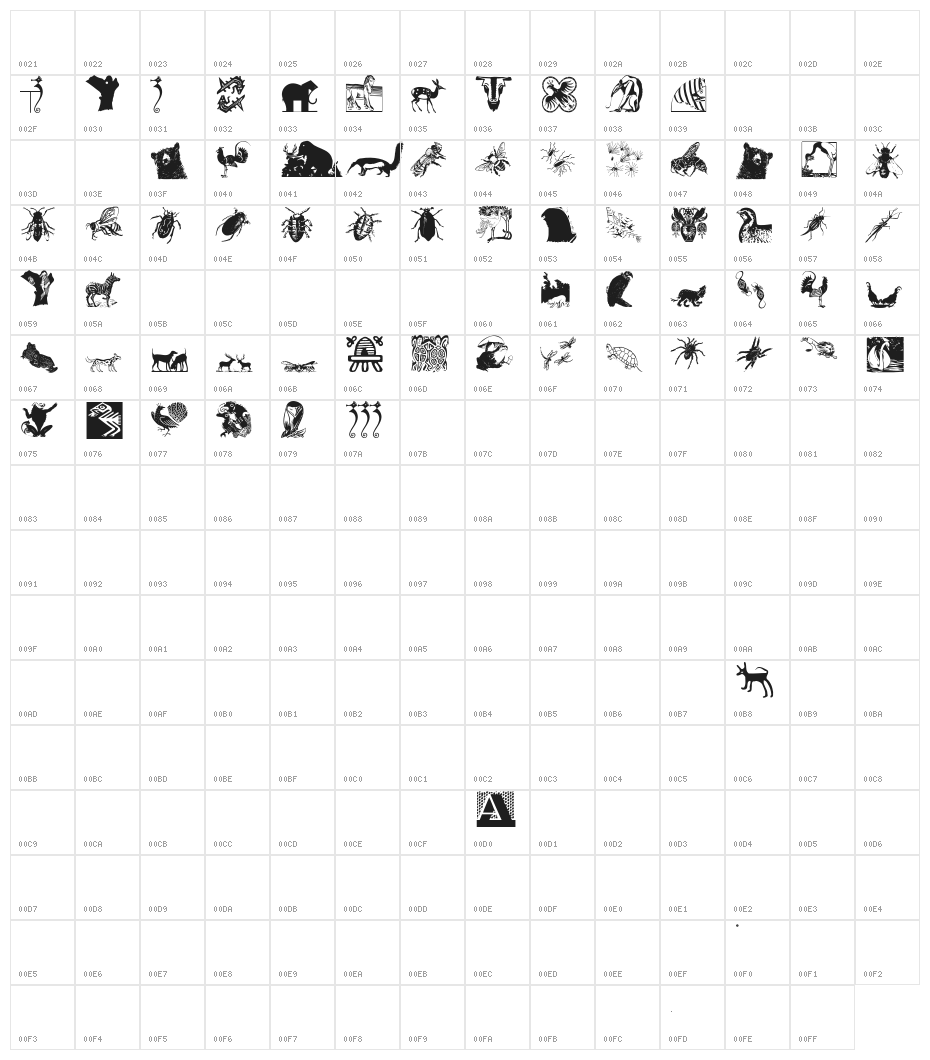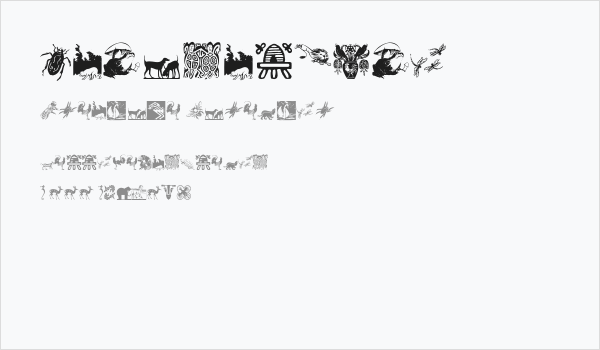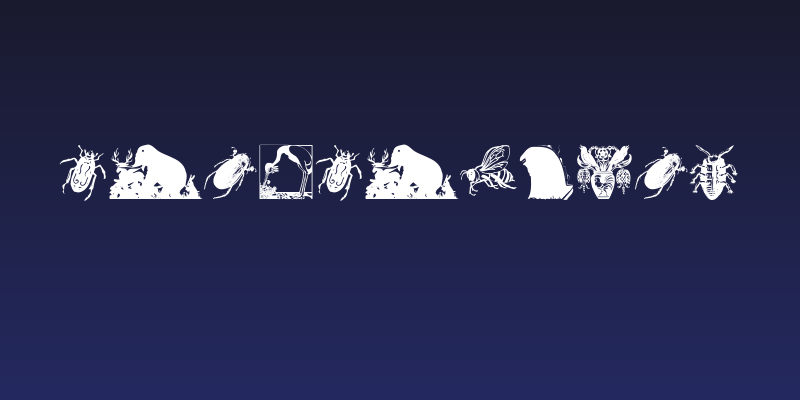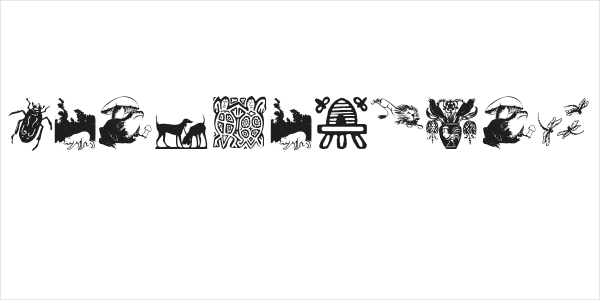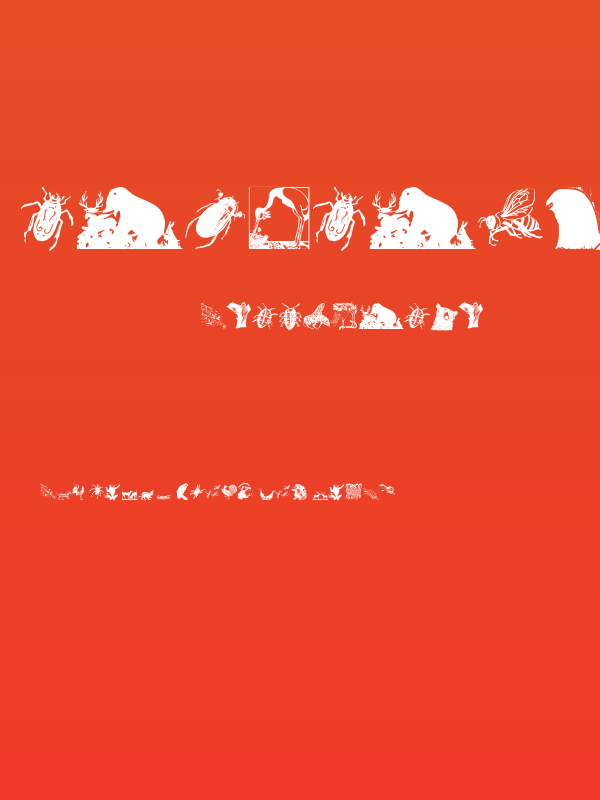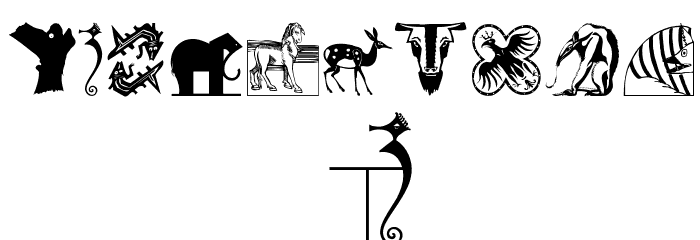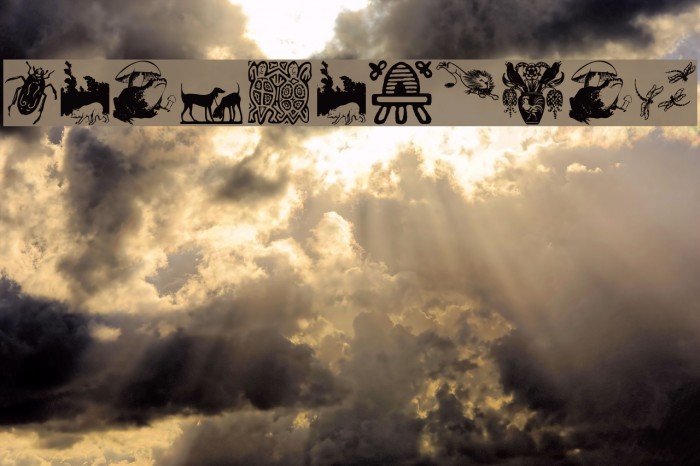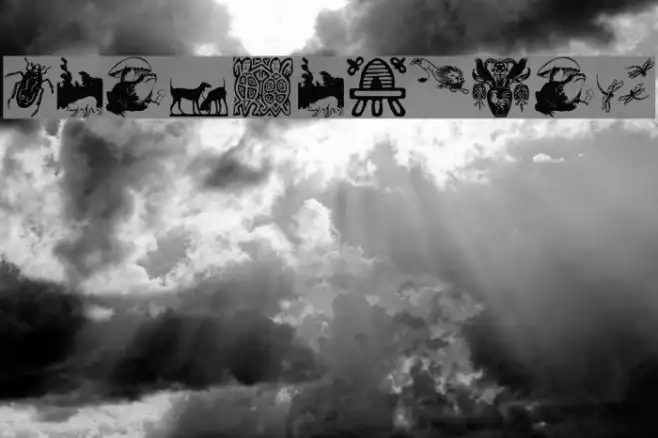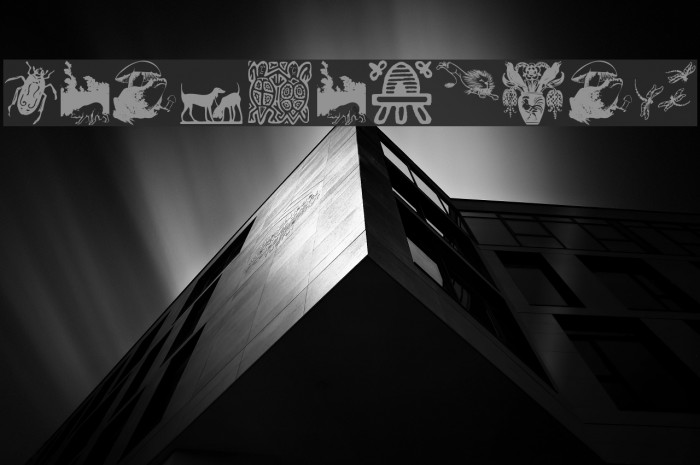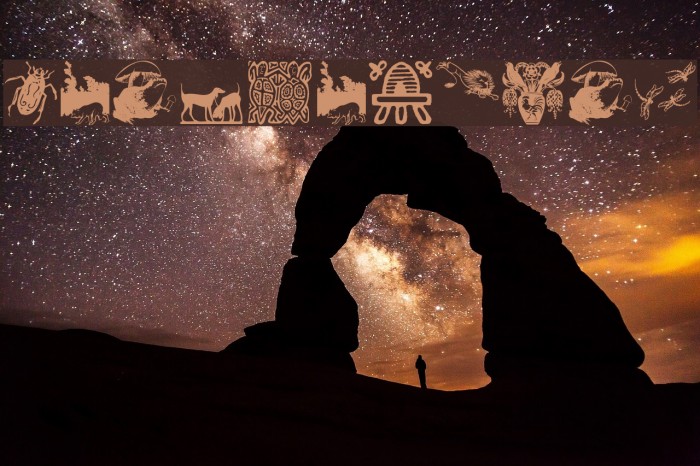
ManimalsUno Font
A decorative dingbat font featuring a wide variety of detailed animal illustrations, including mammals, birds, insects, reptiles, and aquatic creatures, rendered in black and white with both realistic and stylized forms.
| Overall Style | Decorative, Playful, Thematic |
| Use Case | Illustrative elements, icons, creative headings, thematic dividers. |
| Proposed Projects | Children’s books, educational materials, animal-themed posters, creative projects, scrapbooking, and logo design for wildlife organizations. |